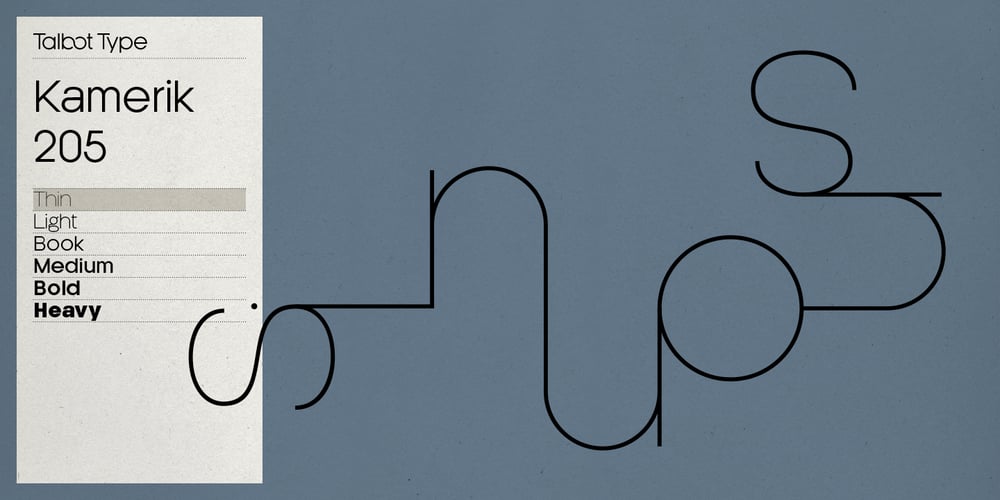
Kamerik 205 Font Family was designed by Adrian Talbot and published by Talbot Type. Kamerik 205 contains 12 styles and family package options. Kamerik 205 is inspired by the classic, geometric sans-serifs such as Futura and Avant Garde, but has shallower ascenders and descenders for a more compact look, and features a traditional double-storey lower case a and g. It’s a versatile, modern sans, highly legible as a text font and with a clean, elegant look as a display font at larger sizes. It includes old style non-aligning (lower case) numbers, both proportional and tabular as well as accented characters for Central European languages. The Kamerik 205 family comprises of six weights, and is closely related to Kamerik 105. The most notable differences between the two variations, are the two-storey lower case a and g in Kamerik 205, where they are single-storey in Kamerik 105.